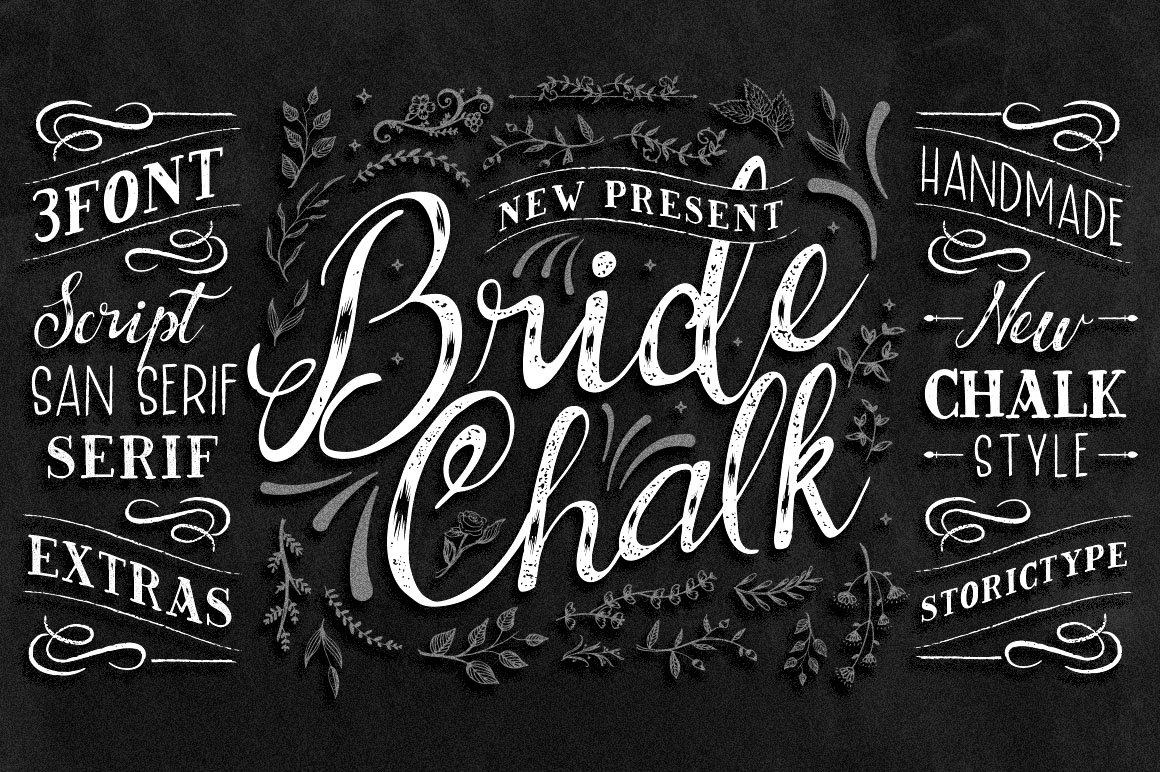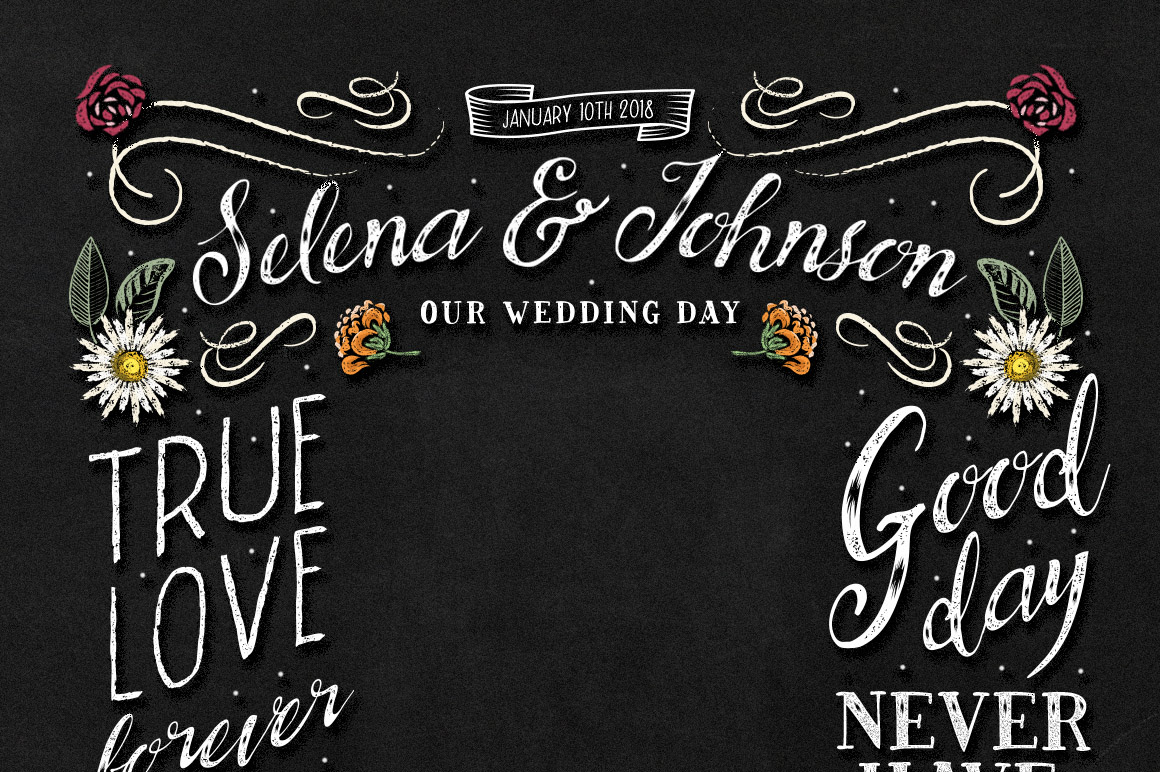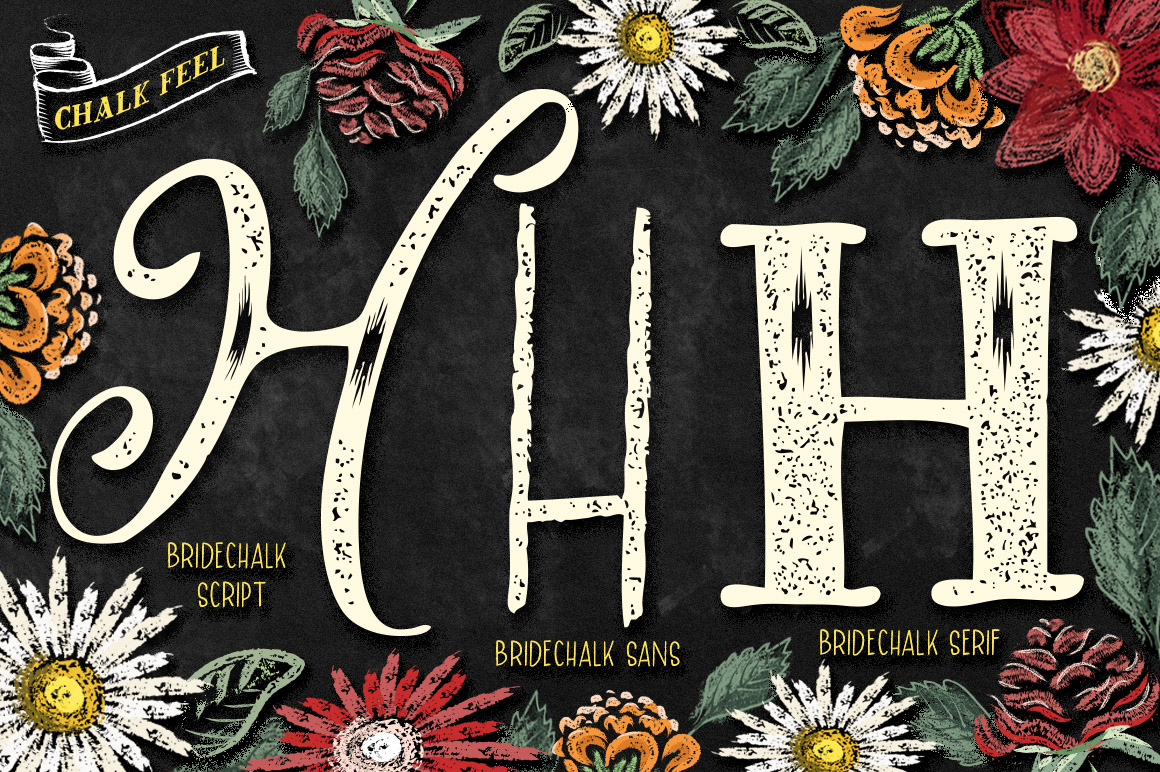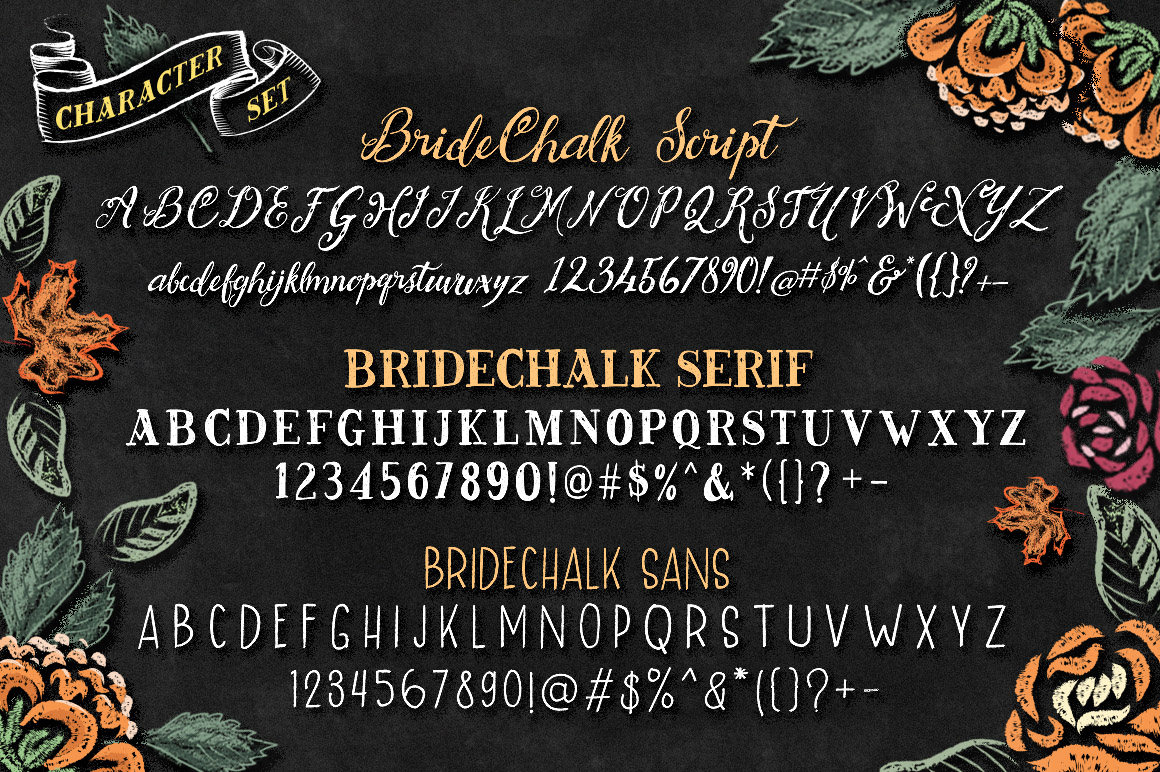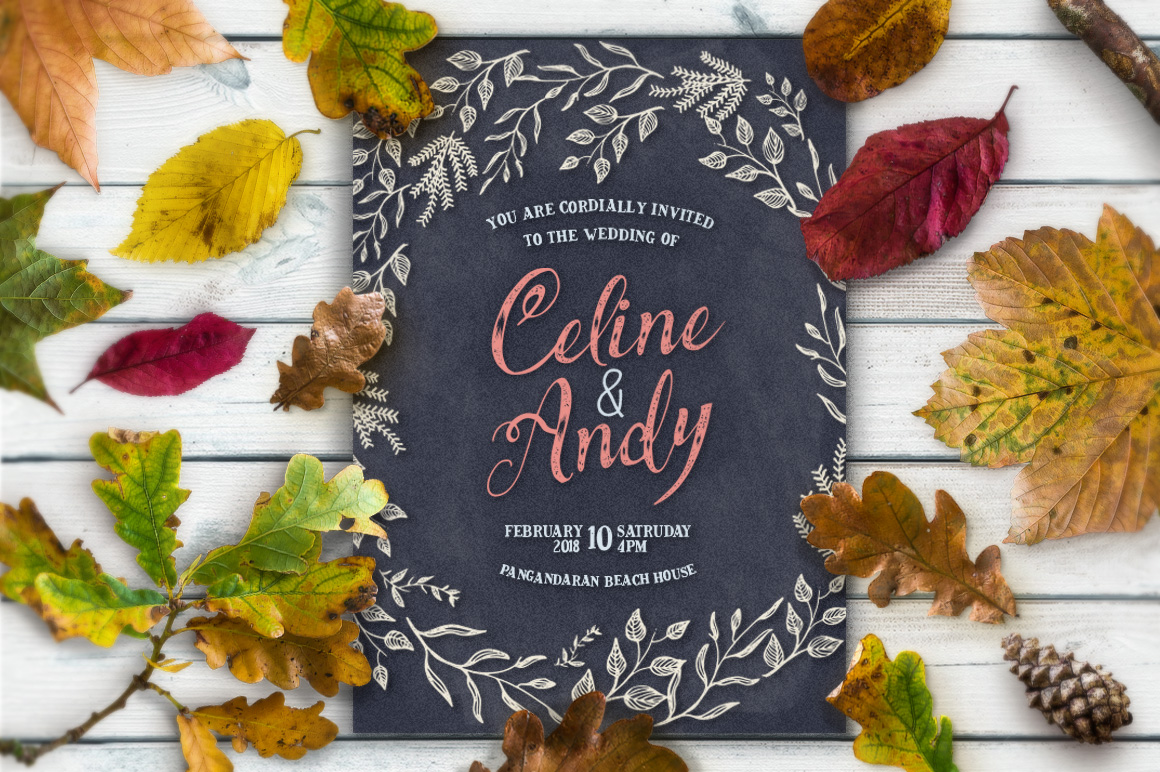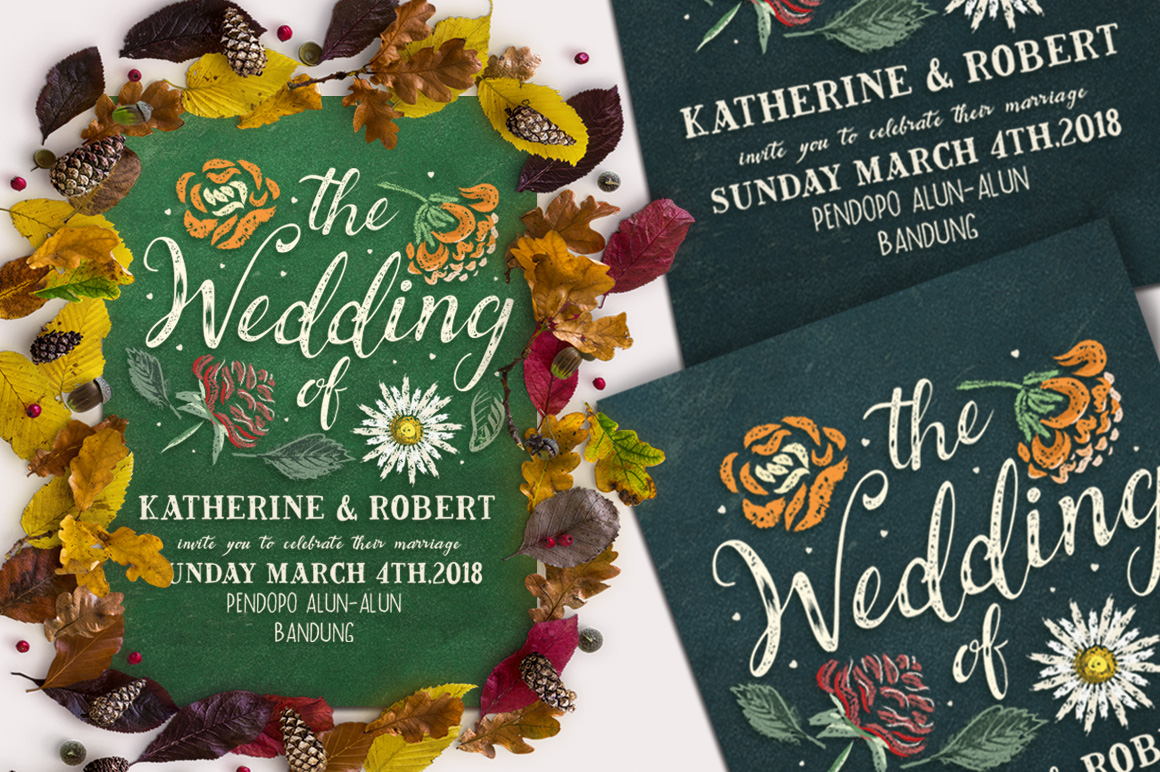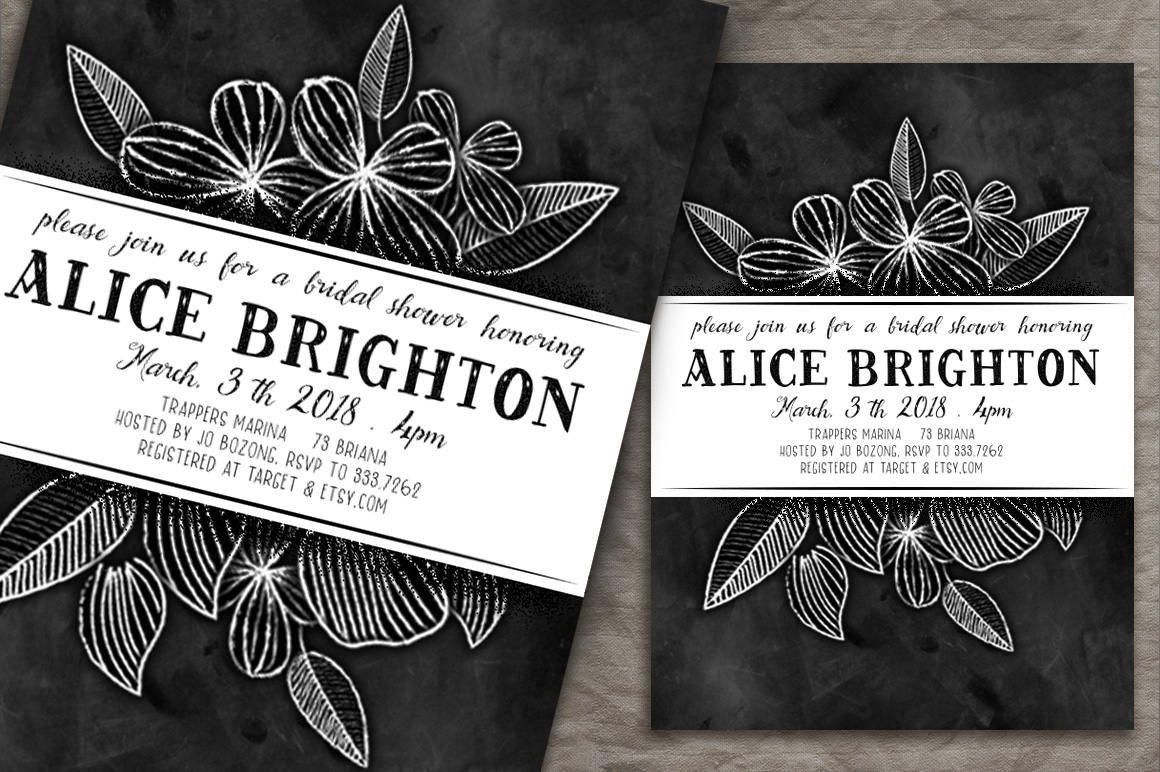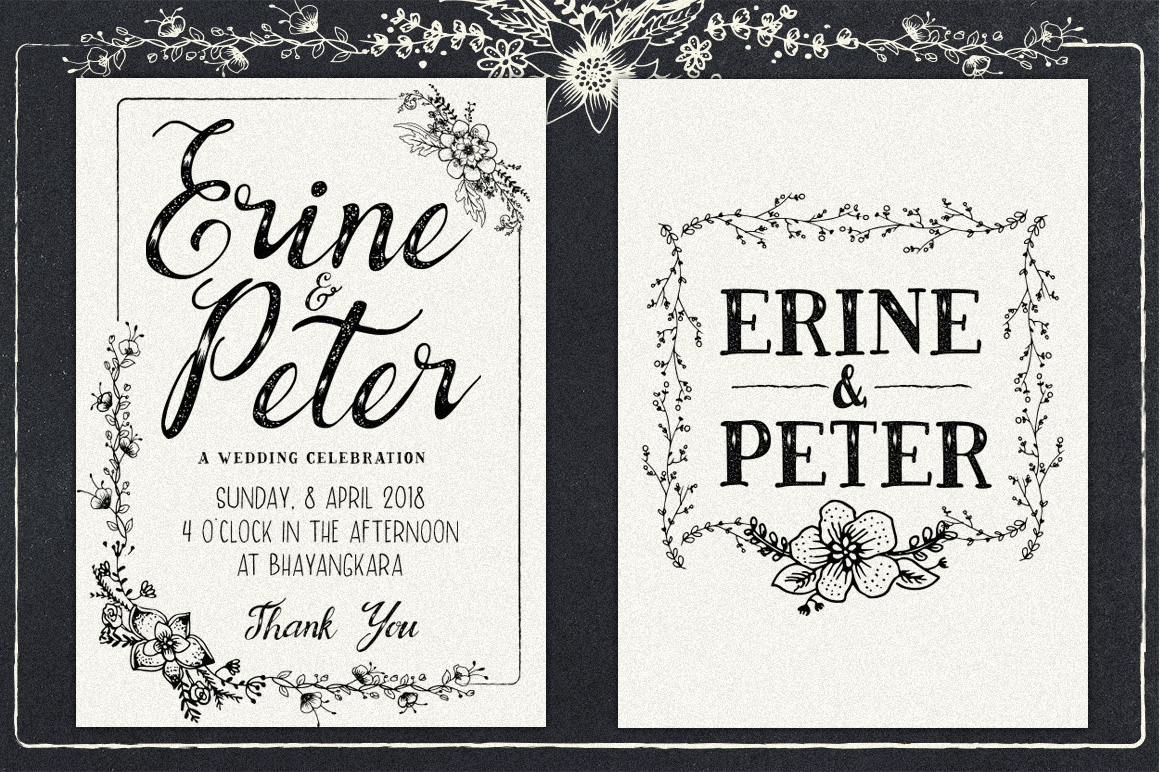
BrideChalk Font
About BrideChalk Font
Inspired by handlettering on chalk backdrops at weddings, BrideChalk is the epitome of elegant handlettered style. This font is a great option for giving your wedding designs an incomparable feeling of authenticity and rustic charm.